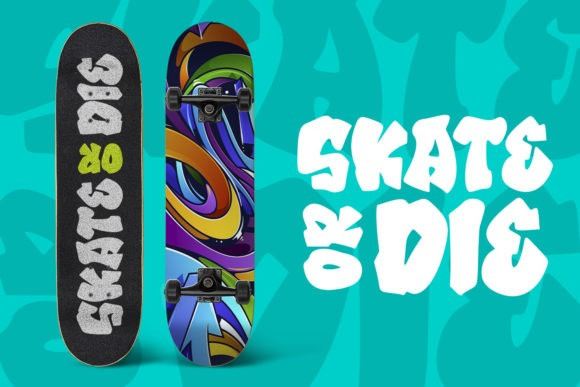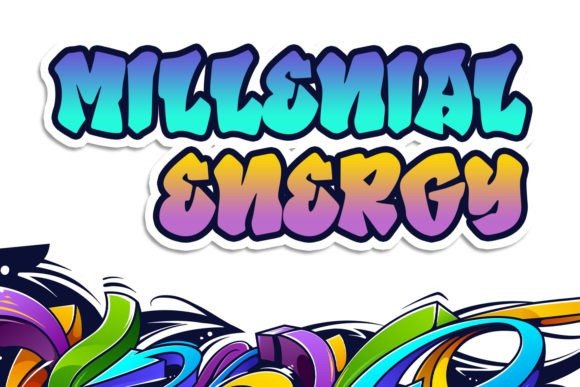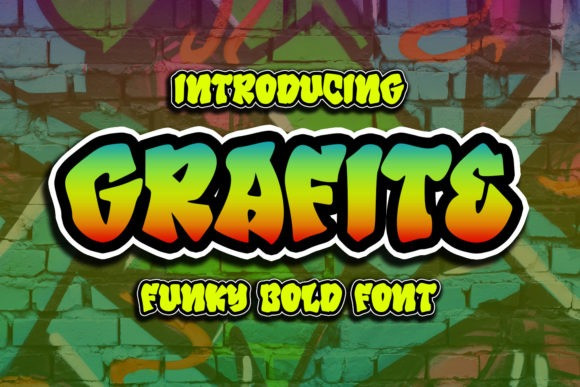
Grafite Font
Grafite Display Font is a thick lettered, graffiti-styled display font that has a street art vibe. This font is suitable for designs such as t-shirts, sportswear, logos, advertisements, clothing, and more.